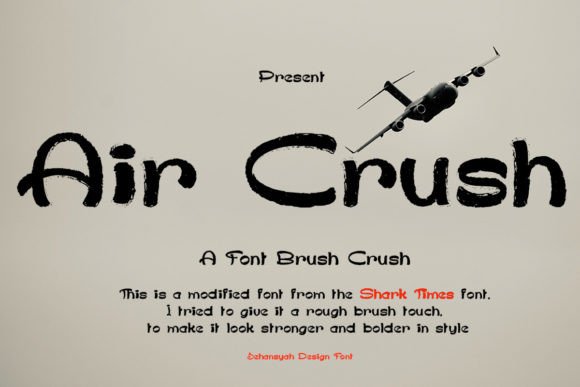
The Air Crush Font: A Game-Changer for Creative Projects
I’ll never forget the time I was working on a branding project for a trendy new cafe, and I just couldn’t find the right font to capture their fun and playful vibe. The client had a clear idea of what they wanted, but I was struggling to bring it to life. That’s when I stumbled upon the Air Crush font, and it completely transformed my design. In this article, I’ll share my experience with this incredible display font, its features, and how you can make the most of it in your creative projects.
An Honest Review of Air Crush
So, what makes Air Crush so special? Here are some things I love about this font:
- ✨ Unique and eye-catching design that’s perfect for headlines and titles
- ✅ Highly legible, even at smaller sizes
- 💥 Extensive character set, including glyphs and stylistic alternates
- 🎨 Great for creative projects, such as posters, flyers, and social media graphics
Of course, no font is perfect, and Air Crush has a few quirks:
- 🤔 May not be the best choice for body text or longer paragraphs
- ⚠️ Some users may find the font a bit too bold or overpowering
The Story Behind Air Crush
Air Crush was designed by a team of typographers who wanted to create a font that would stand out in a crowded design landscape. Inspired by the world of sports and fitness, Air Crush is meant to evoke a sense of energy and movement. Whether you’re designing a poster for a yoga studio or a social media graphic for a fitness brand, Air Crush is the perfect choice.
| Is Air Crush suitable for body text? | While Air Crush is a beautiful font, it’s primarily designed for headlines and titles. It may not be the best choice for body text or longer paragraphs. |